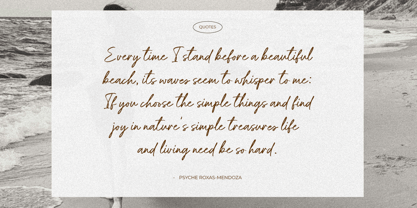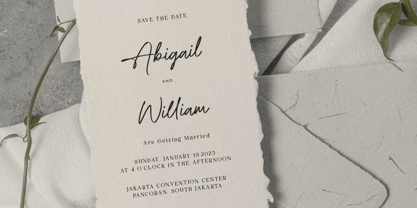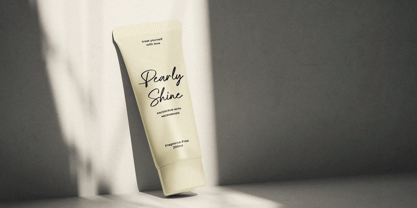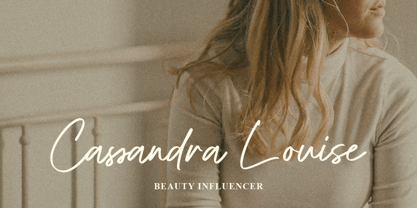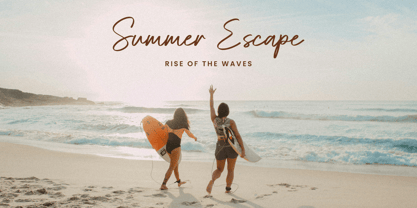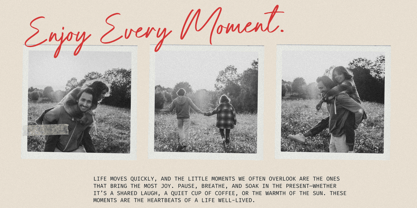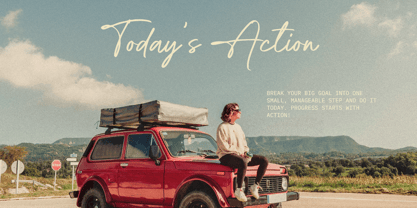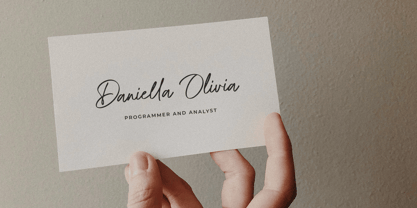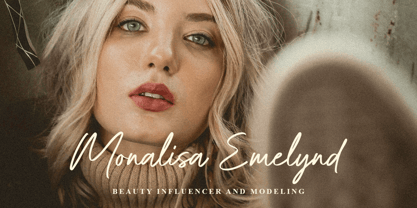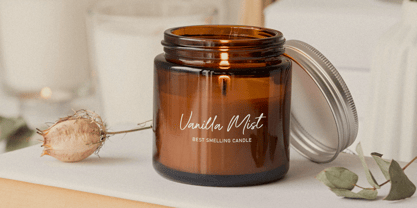
Beyond Dreams
von Heinzel Std
Die Schriftfamilie Beyond Dreams wurde von Nofi Sofyan Hadi entworfen und von Heinzel Std veröffentlicht. Beyond Dreams enthält 1 Stile. Mehr über diese Familie
Beyond Dreams Script Font is a modern signature-style handwritten typeface designed to bring elegance, warmth, and personality to your creative projects. Featuring smooth curves, natural strokes, and stylish ligatures, this font captures the authentic feel of handwritten lettering while maintaining a clean and professional look. Perfect for branding, logos, wedding invitations, social media posts, packaging, fashion design, photography watermarks, and editorial layouts, Beyond Dreams delivers a timeless and sophisticated aesthetic. Its balanced letterforms and flowing rhythm make it highly readable while still feeling expressive and luxurious. Beyond Dreams includes 300+ glyphs, stylistic alternates, and multilingual support, allowing designers to create unique typography with ease. Whether you’re designing for personal or commercial use, this signature script font adds a refined, dreamy touch to any project.